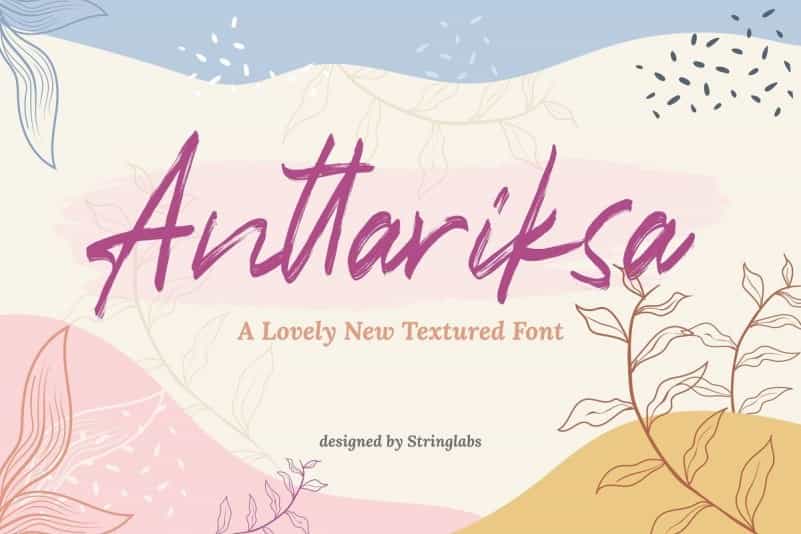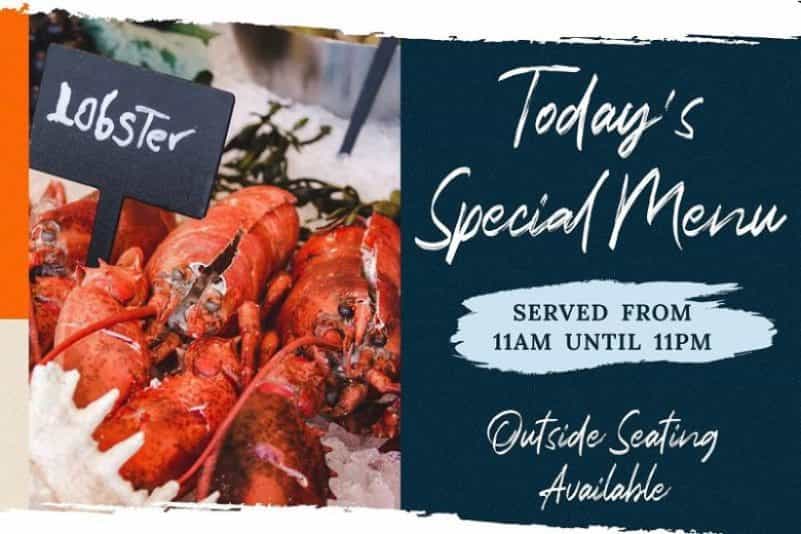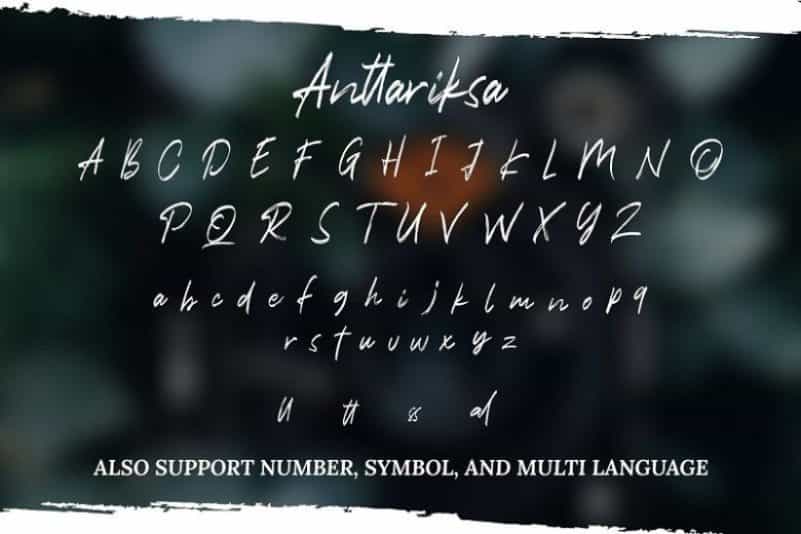
Here comes Anttariksa – the Brush Script Font which is handmade and has a textured style. The Anttariksa font was made with the real handmade brush pen. This font is the best for fashion brand, wedding invitation, business card, logo brand and signature as well as calligraphy. This Font Template is Classy, Elegant, Creative and Cool. Besides that it has a Unique Concept.